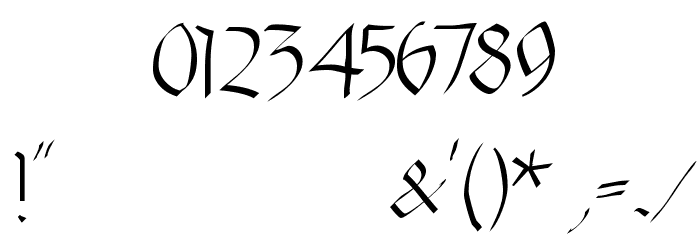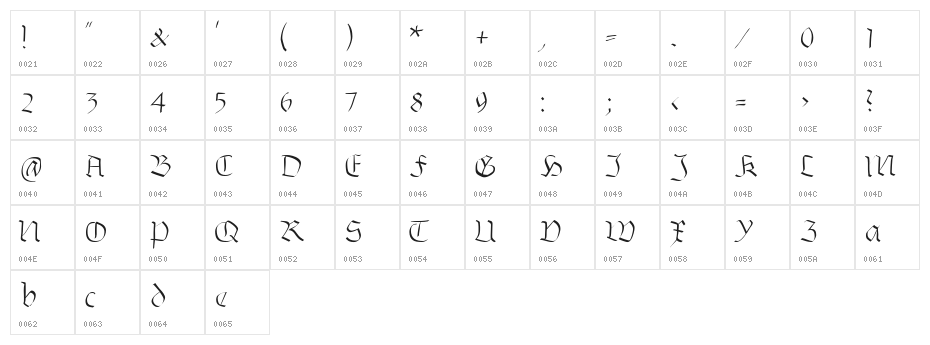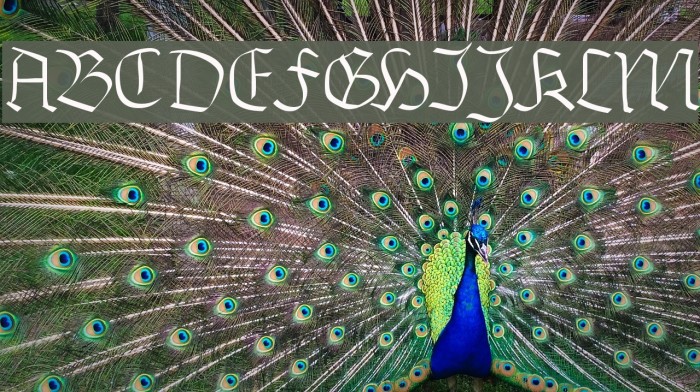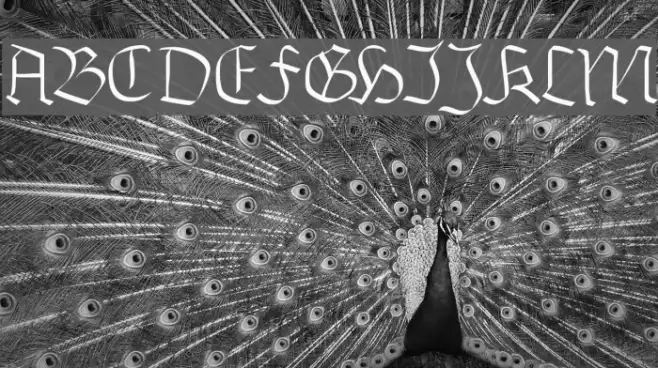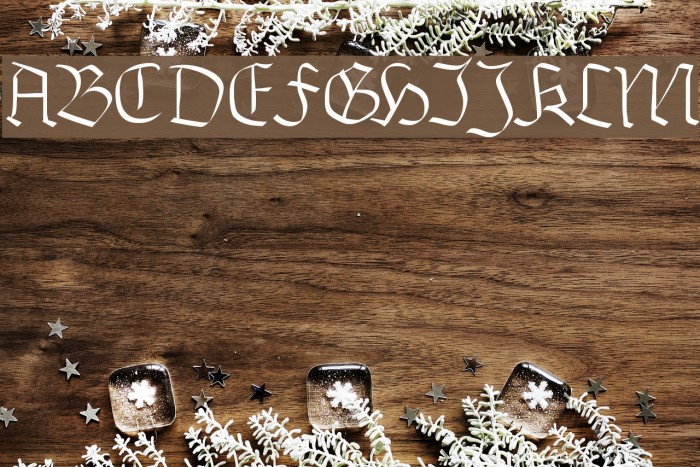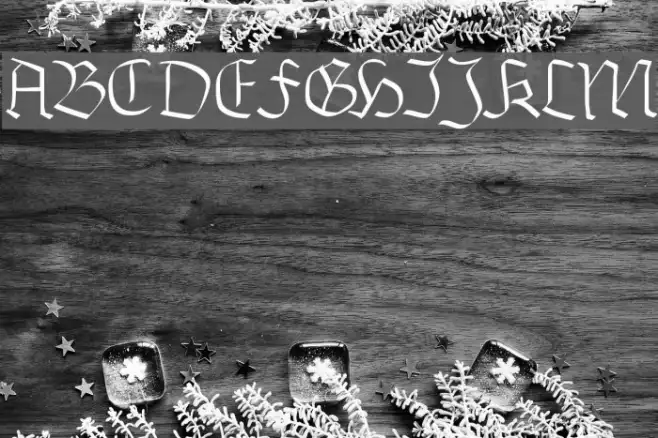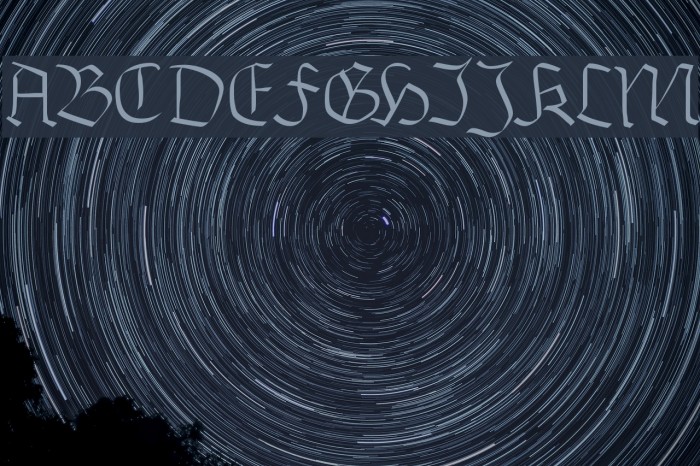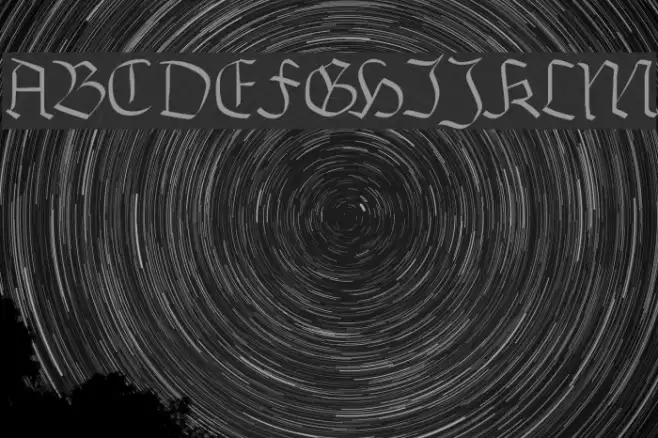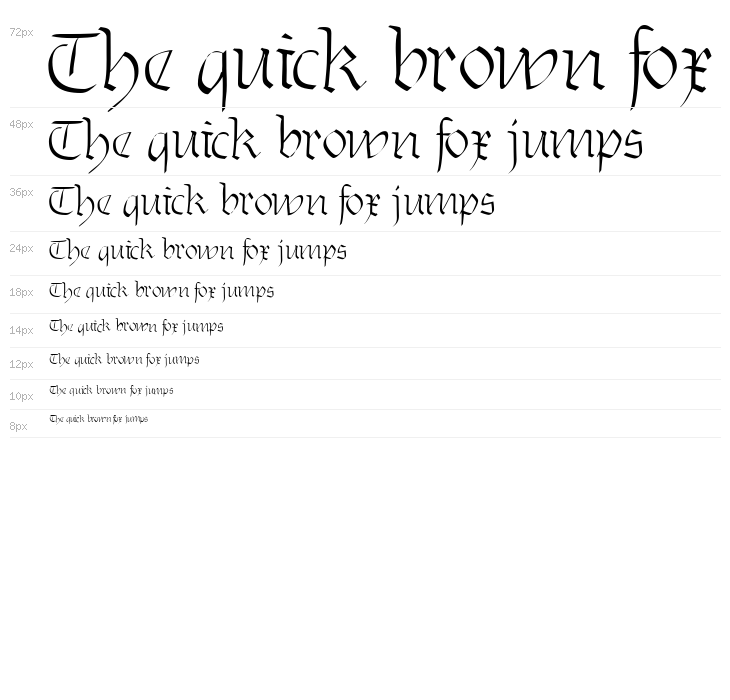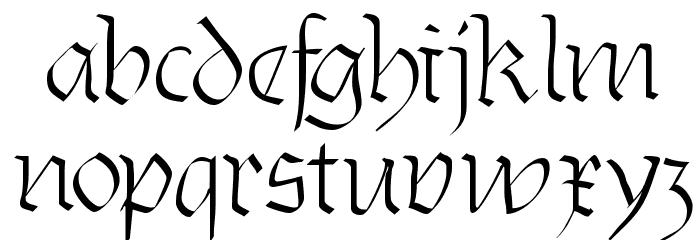
Burtine Font
Burtine Description
This font exhibits a classic blackletter style with sharp, angular strokes and a distinct medieval aesthetic. The uppercase letters are bold and dramatic, featuring intricate serifs and a gothic flair. The lowercase letters maintain the same angularity, offering a cohesive look throughout. Numbers and special characters are designed with the same attention to detail, ensuring consistency across all elements. The overall appearance is both elegant and imposing, making it suitable for projects that require a historical or traditional touch.
| Use Case | Headlines, Logos, Decorative text |
| Proposed Projects | Ideal for historical documents, wedding invitations, book covers, and branding that requires a traditional or gothic touch. |